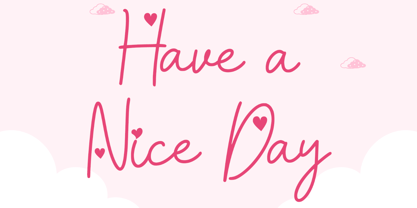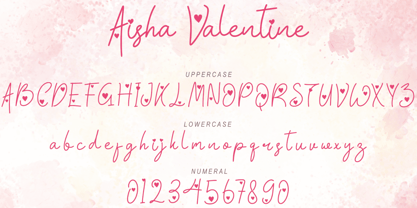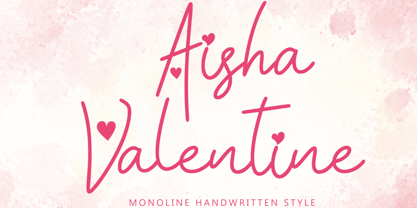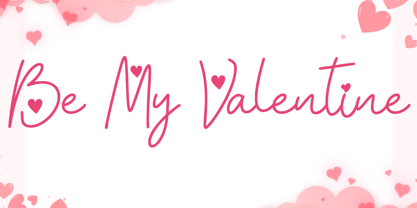
Aisha Valentine
por Yoga Letter
La familia tipográfica Aisha Valentine fue diseñada por Isroni Yoga Prasetya y publicada por Yoga Letter. Aisha Valentine contiene 1 estilos.
"Aisha Valentine" is a beautiful and lovely monoline handwritten font. This font is equipped with uppercase, lowercase, numerals, punctuations and multilingual support. It is very suitable for weddings, invitations, valentines, banners, posters, prints, branding, stickers, logos and others.
Diseñadores: Isroni Yoga Prasetya
Editorial: Yoga Letter
Fundición: Yoga Letter
Propietario del diseño: Yoga Letter